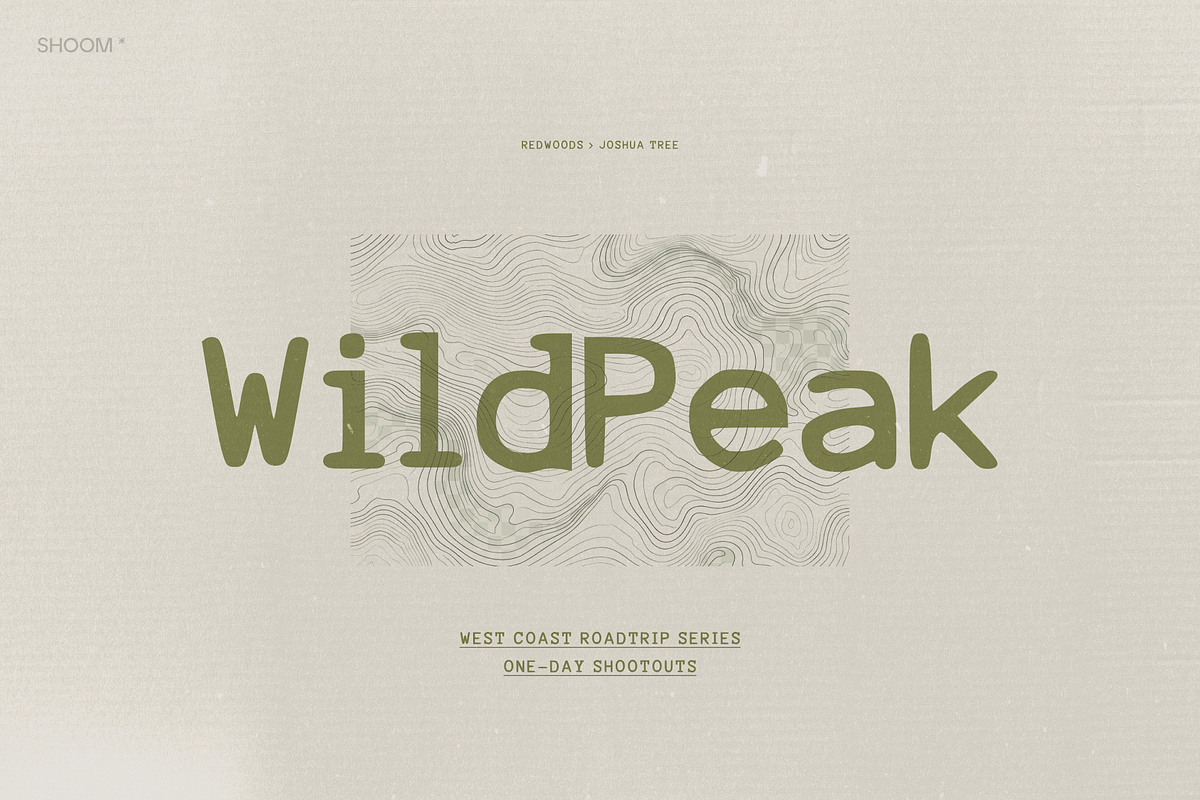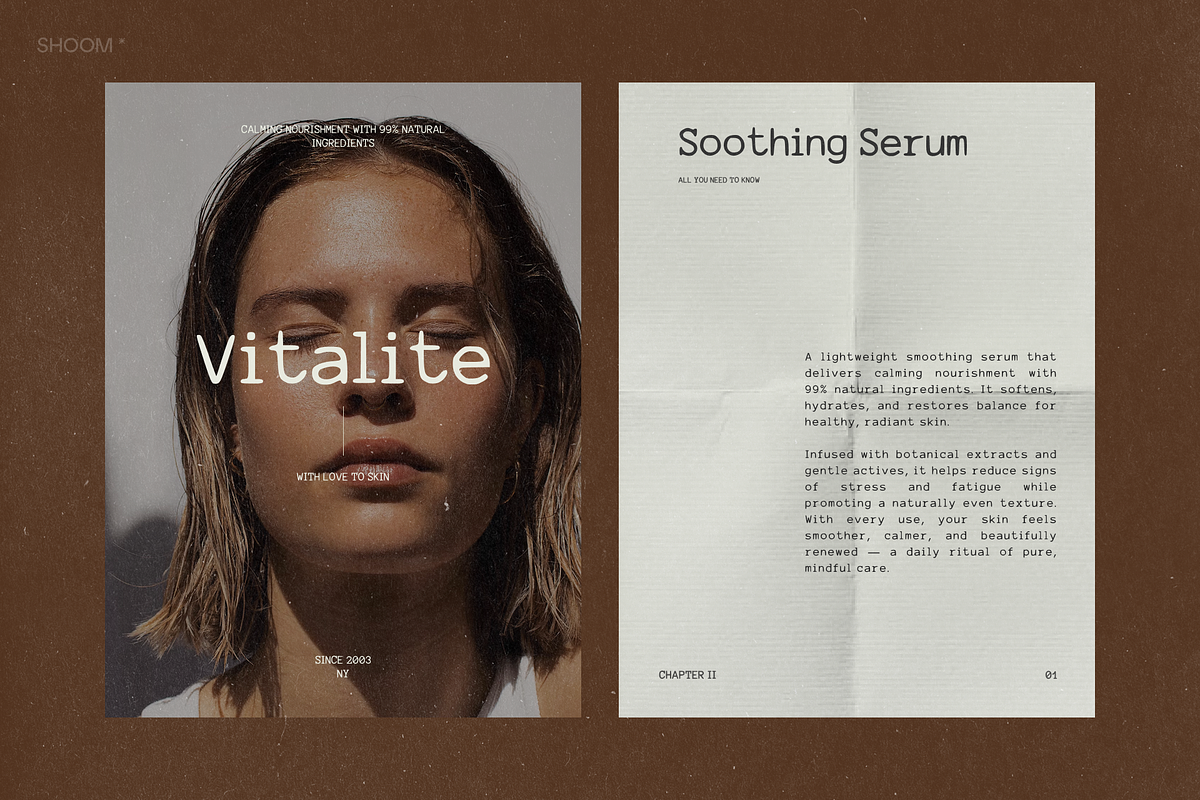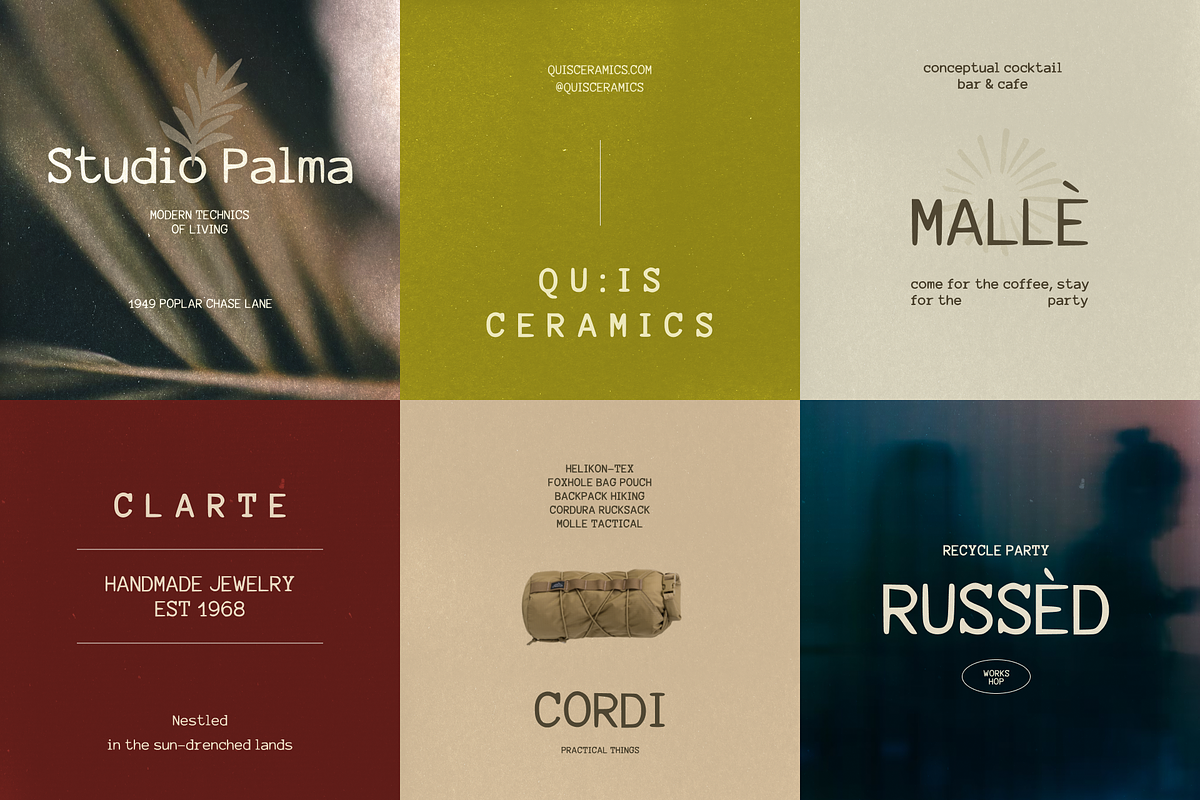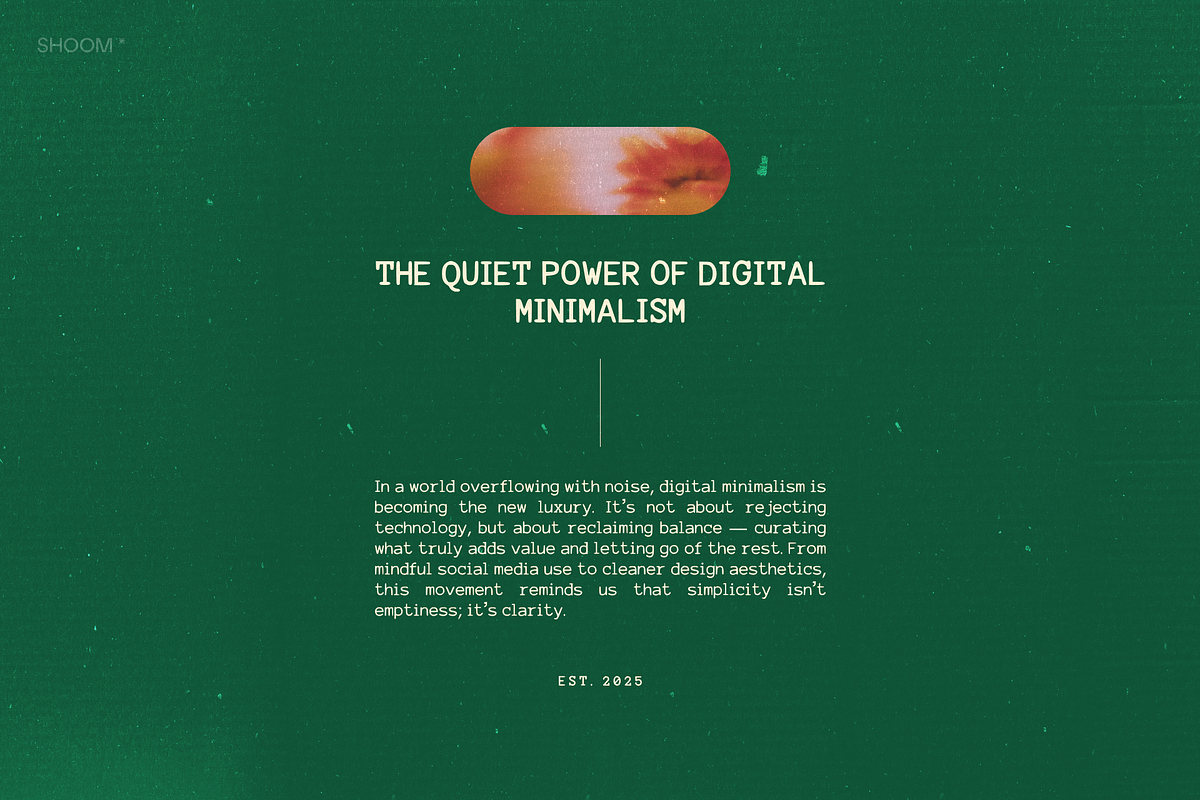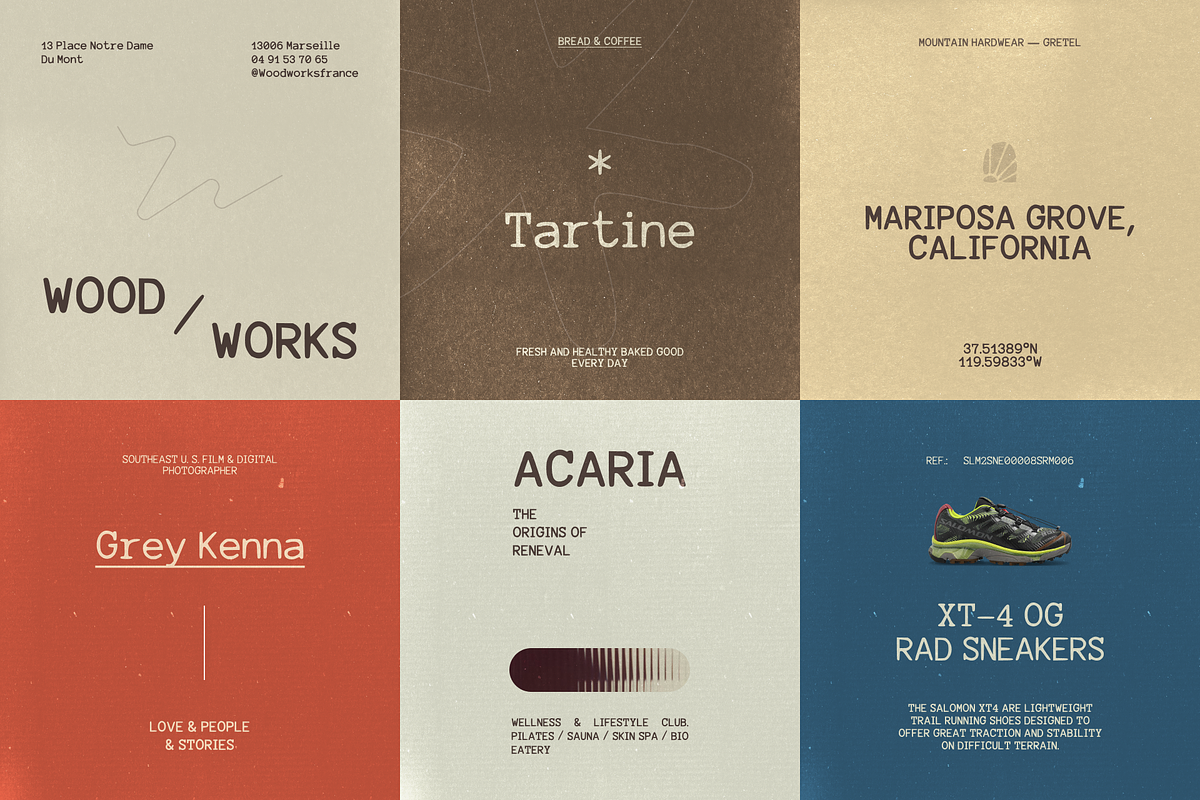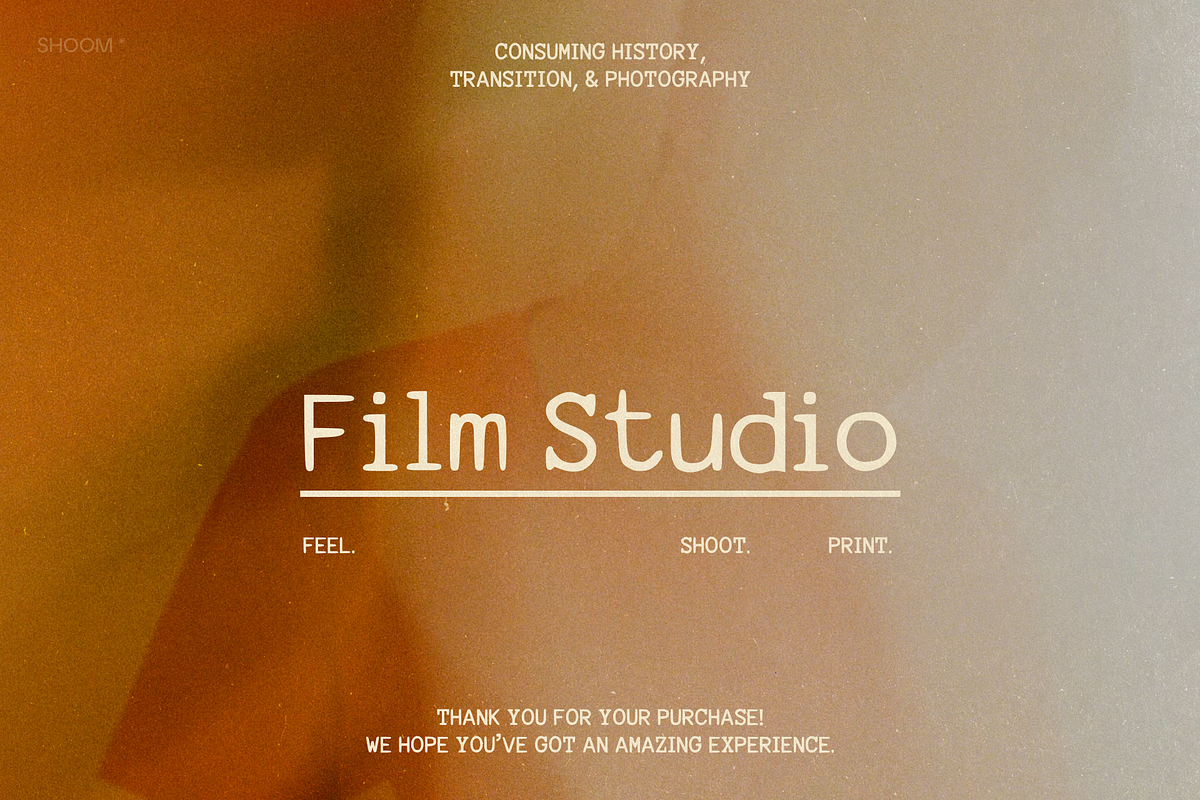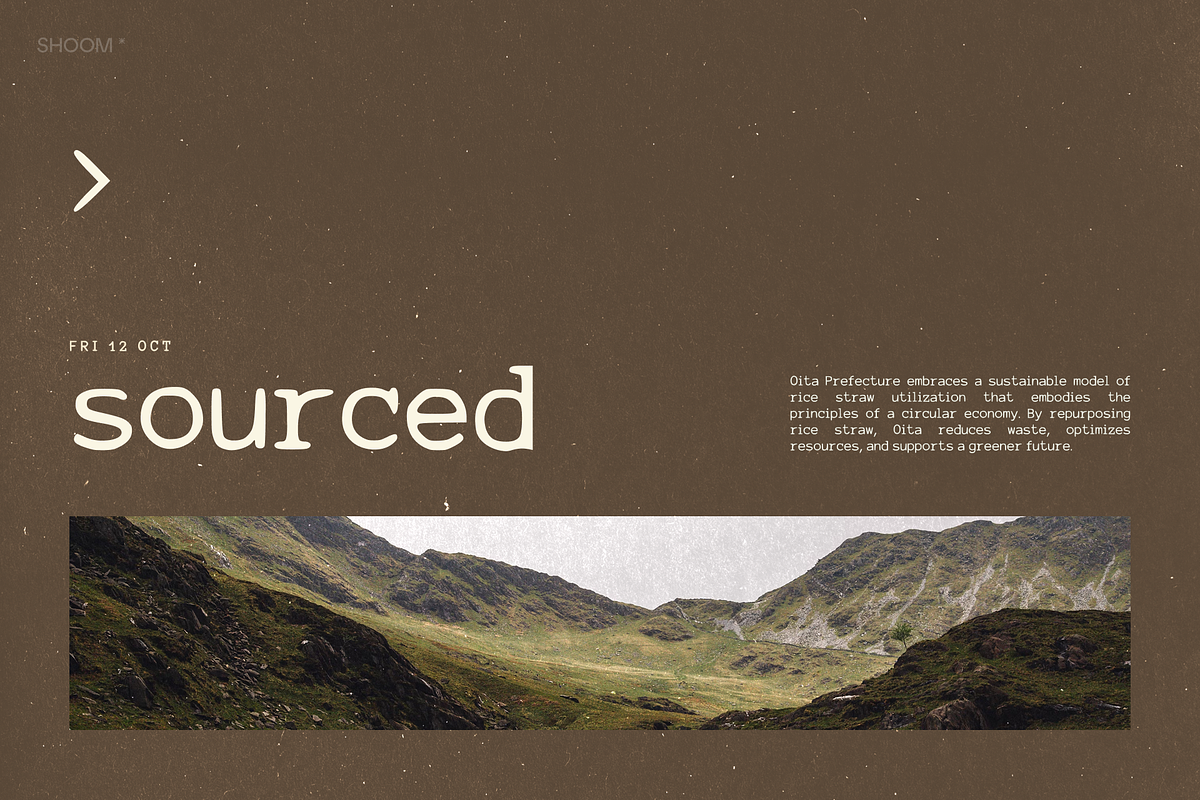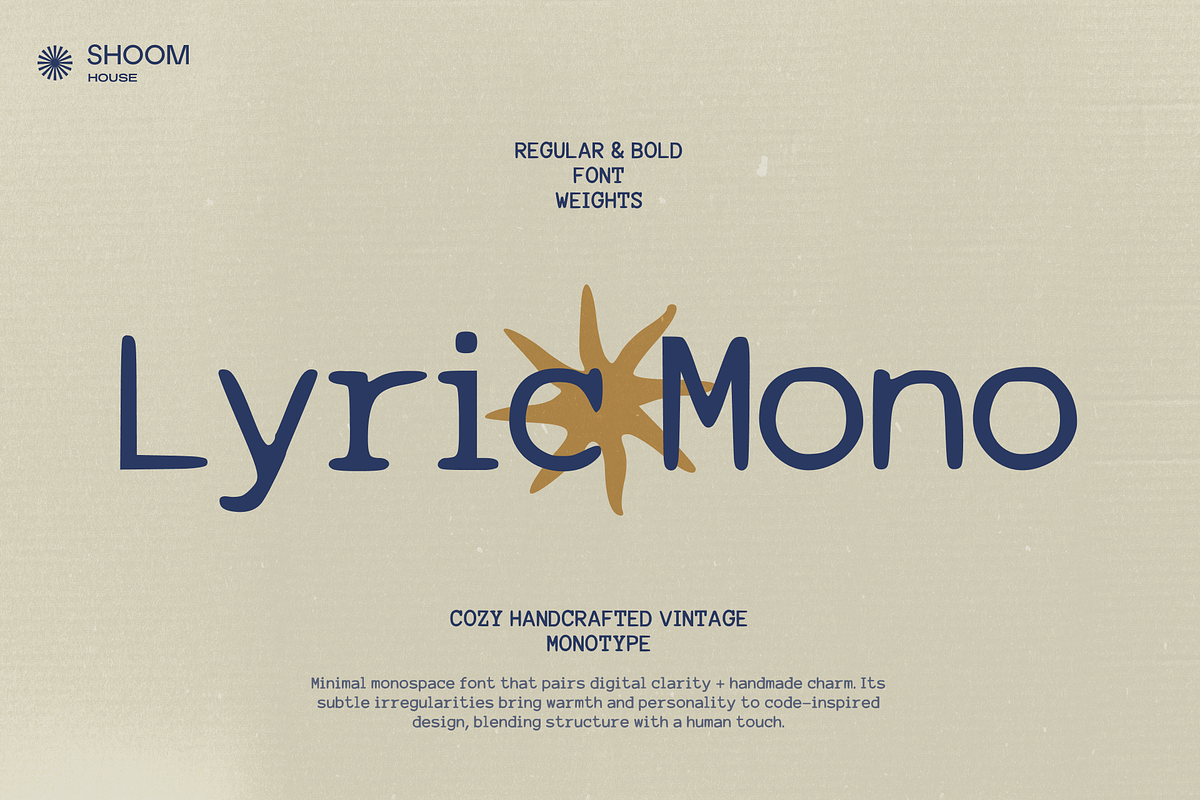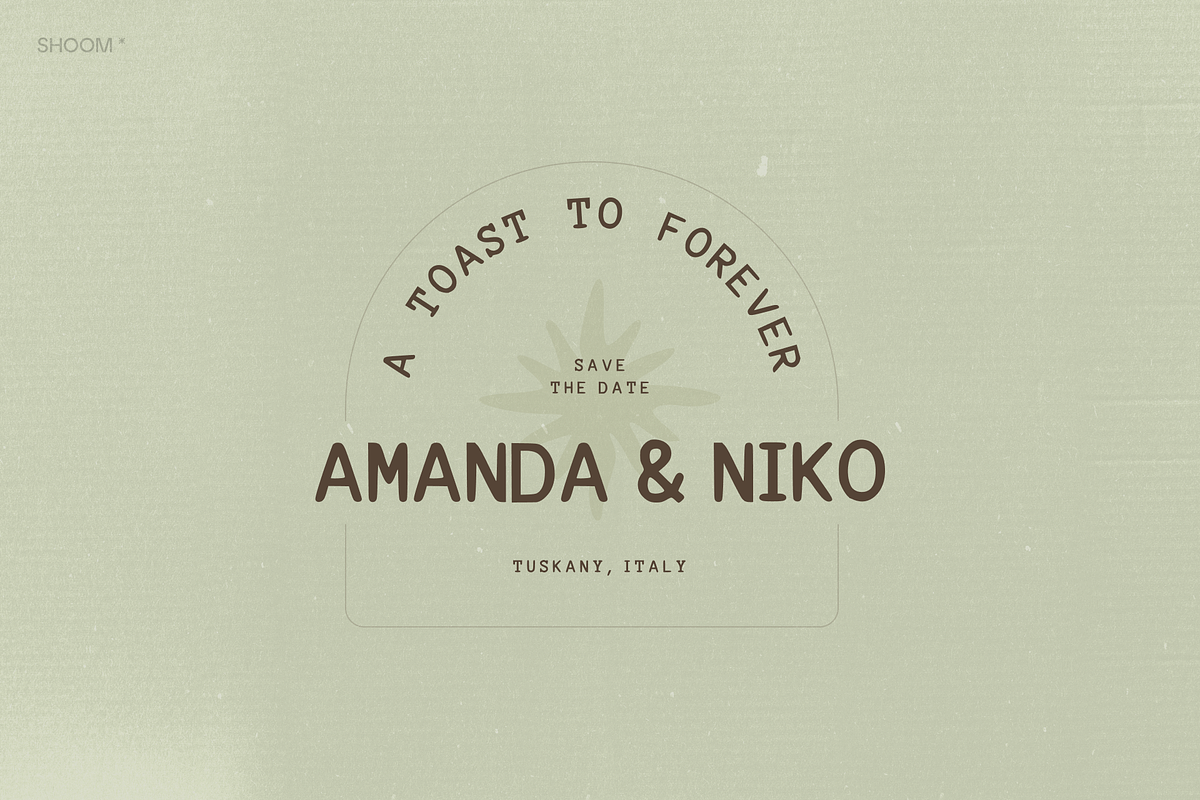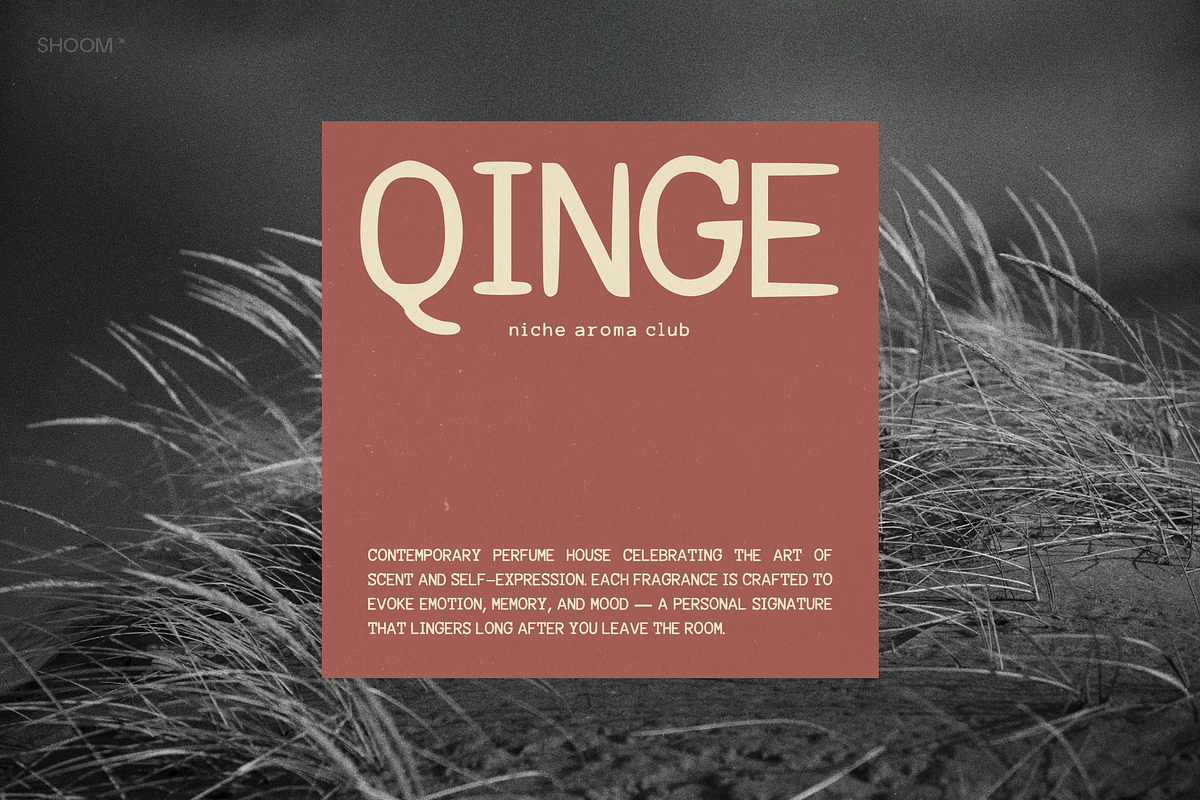
Lyric Mono: Cozy Monotype
✽ Honest geometry + raw rhythm: where the poetic craft meets modern system.
Lyric Mono was made for those who believe simplicity isn’t emptiness, and imperfection isn’t flaw. Every curve and corner carries the memory of its making — uneven, intentional, human. Its monospaced form gives it order; its rough craft gives it depth. Together they create a timeless aesthetic that feels both analog and digital, modern and ancient, measured yet free.
✽ FONT FEATURES
- Family includes: Regular + Bold fonts
- Uppercase & lowercase English alphabet
- Numbers & punctuation symbols